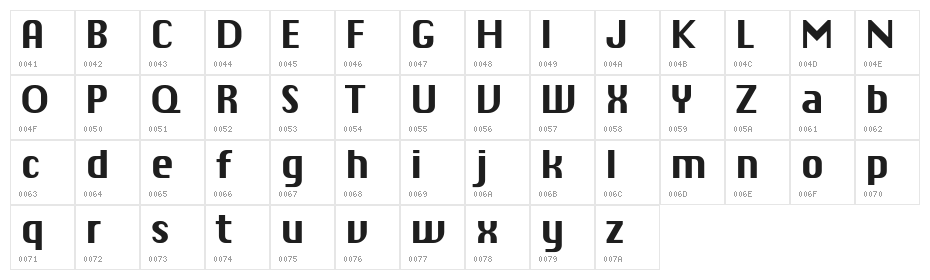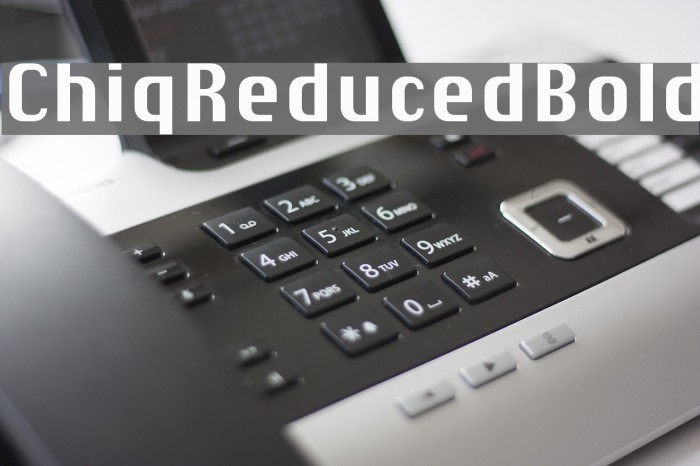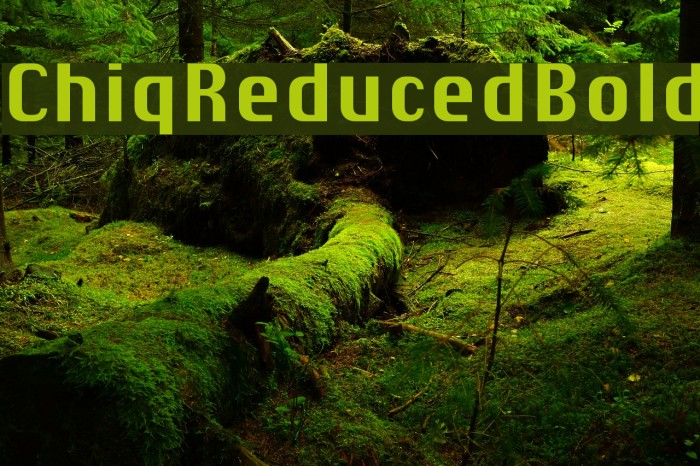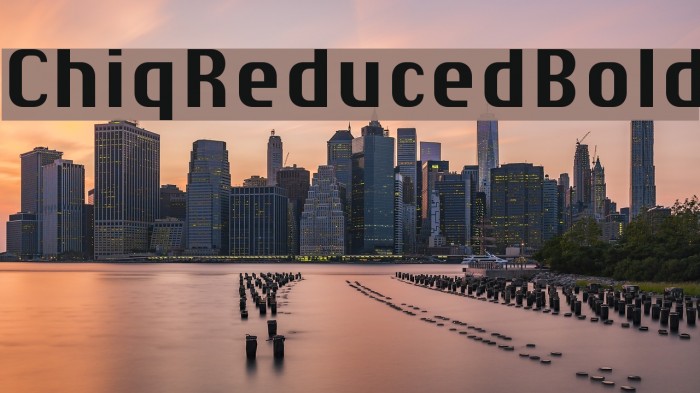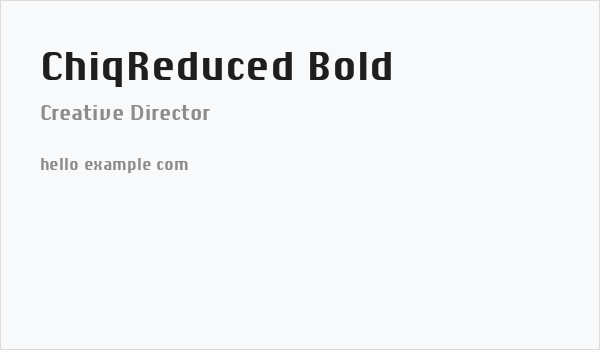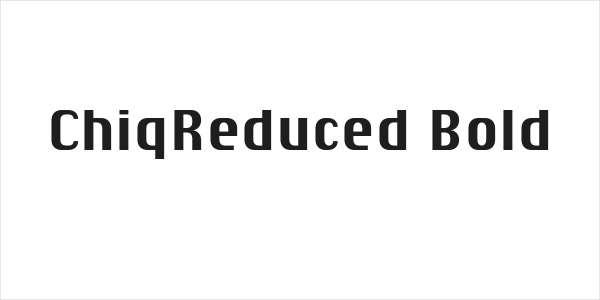
ChiqReduced-Bold Font
ChiqReduced-Bold Description
This font features a bold and modern design with clean, geometric lines. The characters are well-defined with a slightly condensed width, giving it a compact and efficient appearance. The uppercase letters are uniform in height, while the lowercase letters maintain a consistent baseline, enhancing readability. The font's structure is robust, with medium contrast in stroke thickness, making it suitable for various design applications. Its simplicity and clarity make it versatile for both digital and print media.
| Proposed Projects | Ideal for branding, advertising, headlines, and digital interfaces where clarity and impact are essential. |